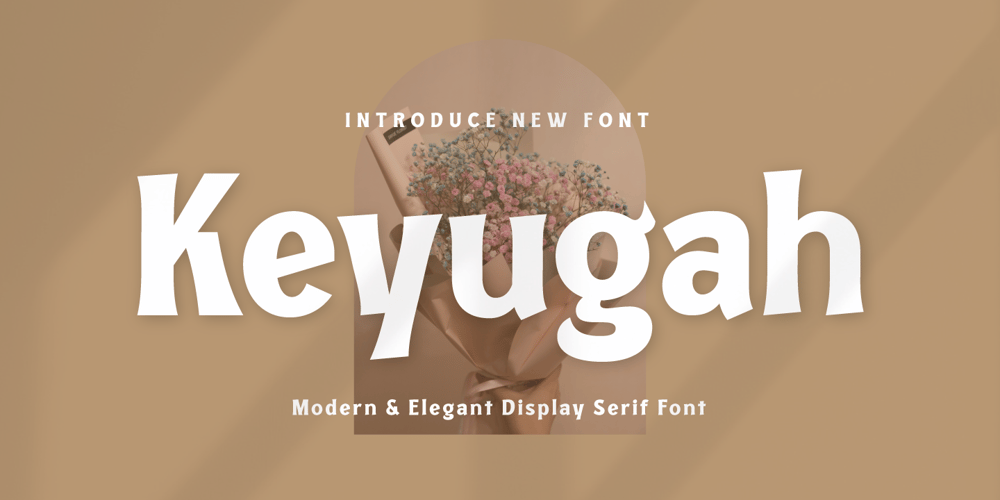
Keyugah Font Family was designed by Lita Faolina and published by Product Type. Keyugah contains 1 styles and family package options. Keyugah is a classic serif font that exudes elegance and sophistication. Its timeless design makes it perfect for any project that requires a touch of refinement, from wedding invitations to high-end branding materials.With its clean lines and understated serifs, Keyugah is easy to read and works well in both print and digital media. Its versatility is further enhanced by its multilingual support, which allows you to use it in a wide variety of projects for a global audience.Whether you’re creating a logo for a luxury brand, designing a book cover, or crafting an elegant website, Keyugah is a reliable choice that will elevate your project to the next level.What’s Included :- All glyphs Iso Latin 1- We highly recommend using a program that supports OpenType features and Glyphs panels like many Adobe apps and Corel Draw, so you can see and access all Glyph variations.- PUA Encoded Characters – Fully accessible without additional design software.- Fonts include Multilingual support